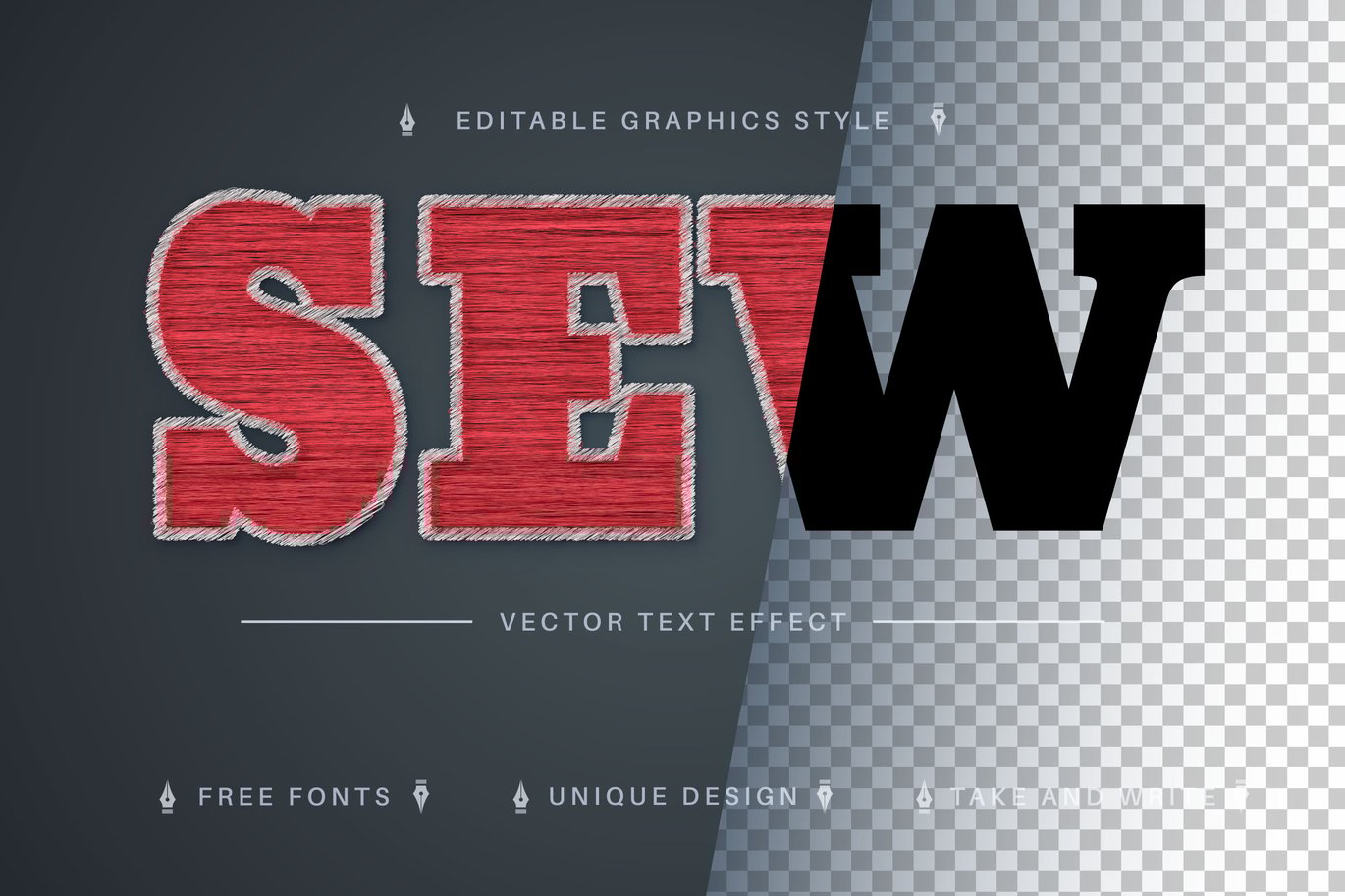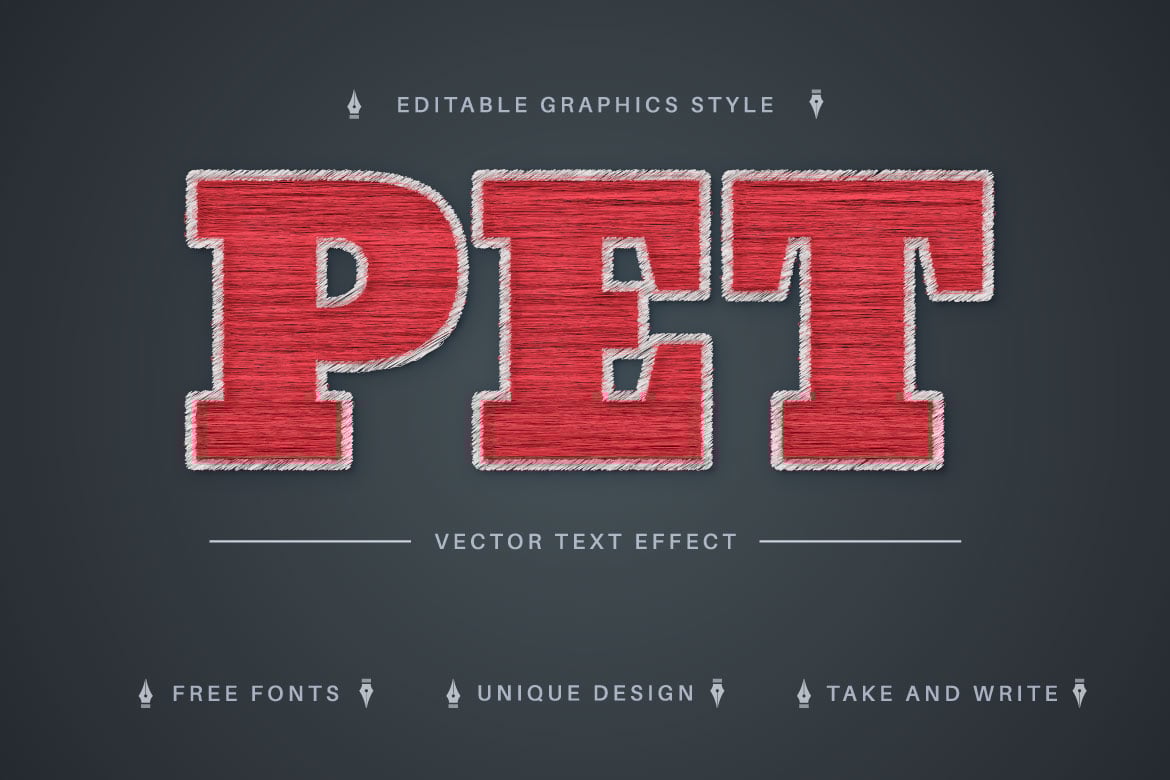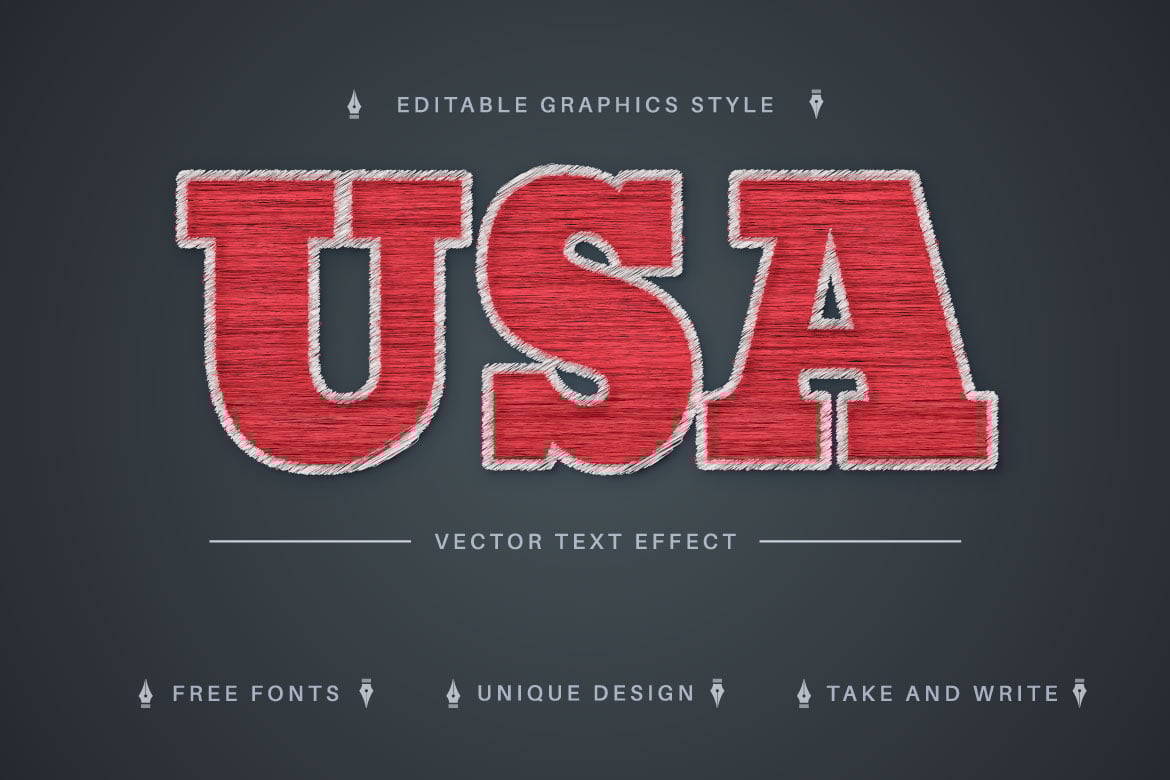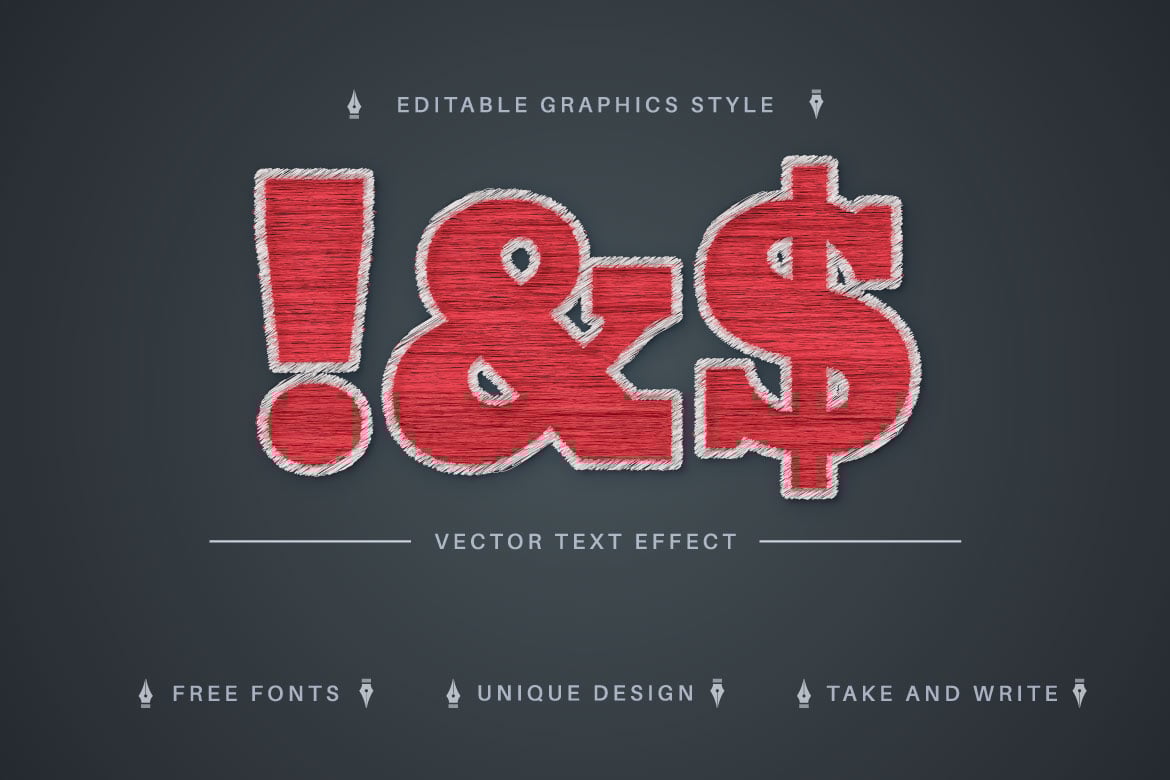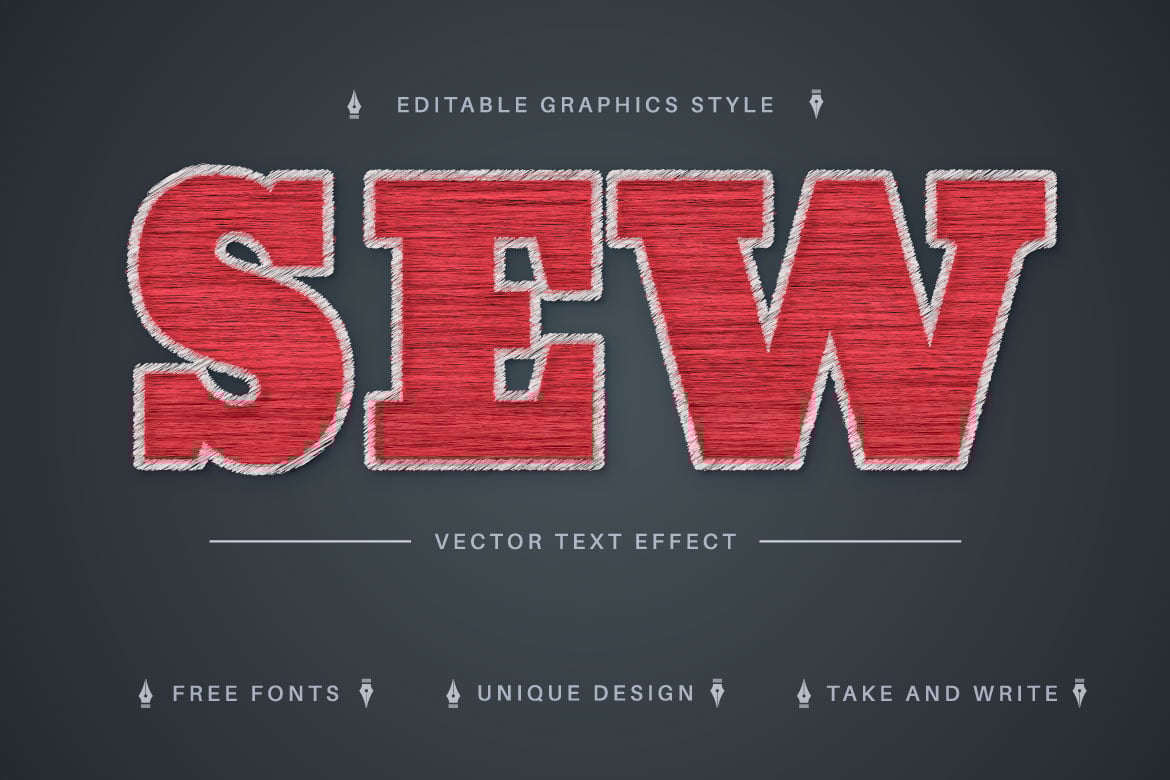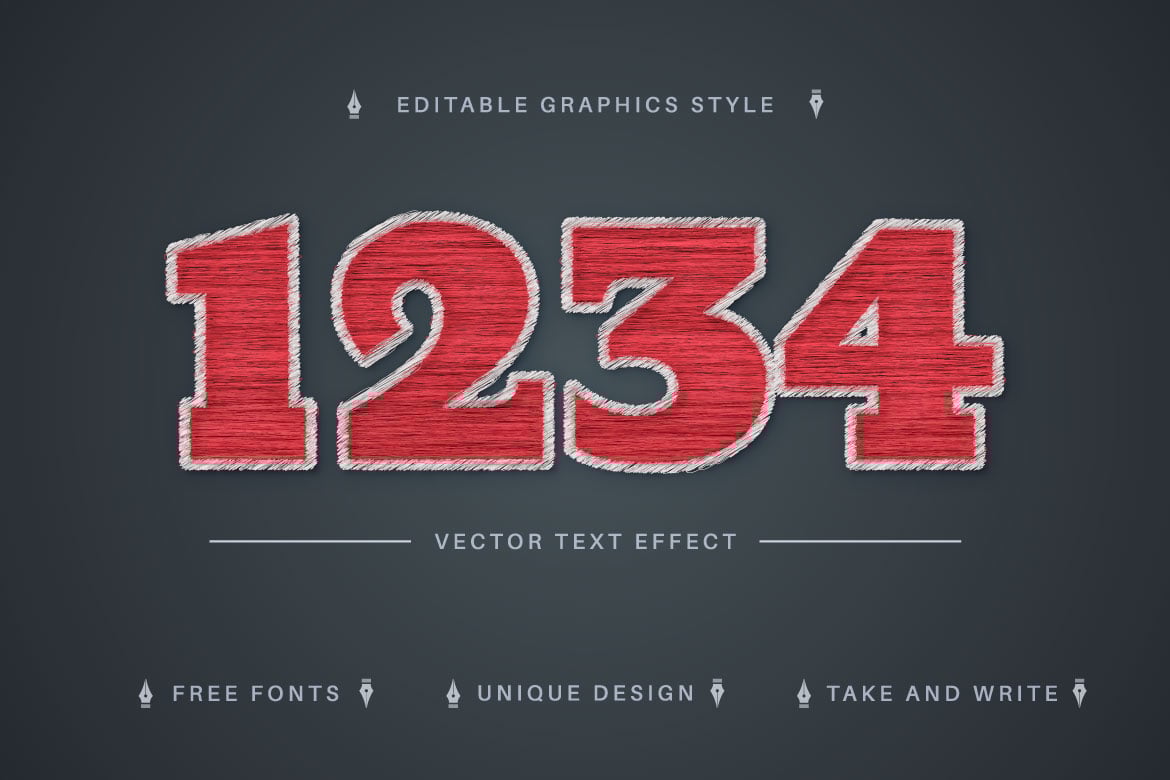
Thread Embroidery Editable Text Effect, Font Style
Hello! I’m happy to introduce my new text effect “Thread Embroidery”. Just write your word and the effect will apply! Be as creative as you like to be in expressing yourself using this unique “Thread Embroidery”. Effect is perfect for any project that needs a unique handy touch whatever else your imagination leads you to!